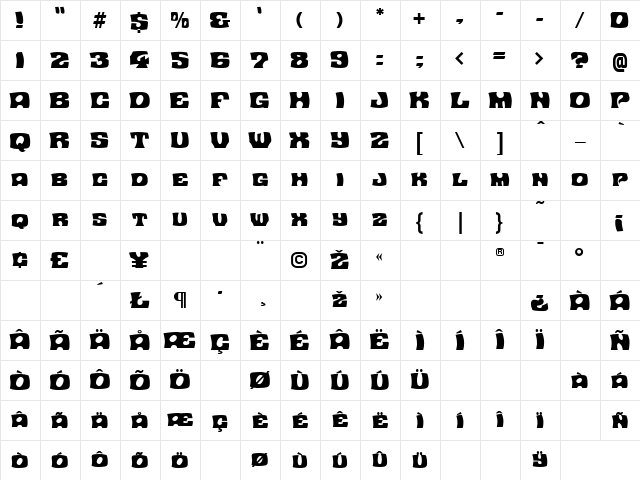
Leonard Regular Free Font
Leonard Regular
Foundry: Digitized by Dan X. Solo. Software by Dover Publications, Inc
Design Context for Leonard
Leonard is a composed and adaptable typeface that performs quietly and consistently across a wide range of design contexts.